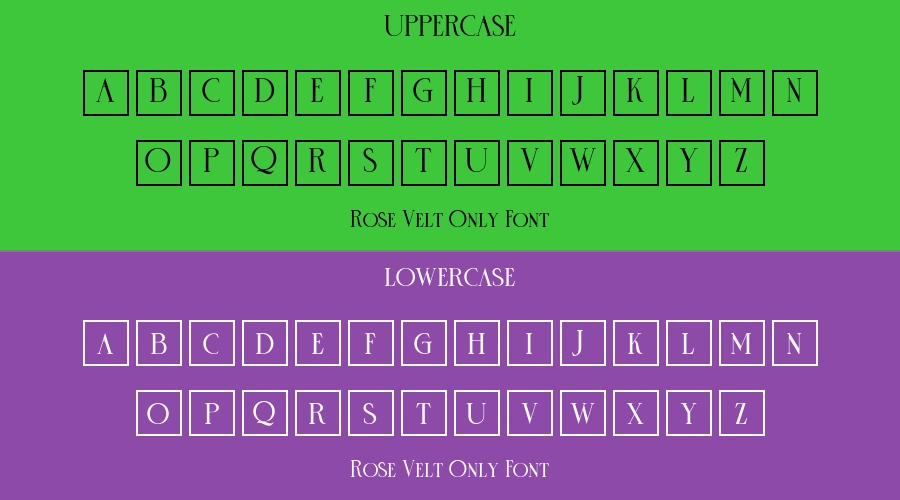
About Rose Velt Only Font
Designed with precision, Rose Velt Only Font merges decorative alternates with consistency in every character. This versatility makes it particularly effective for event branding, where distinctiveness and creative potential directly impact communication quality. Each letterform demonstrates meticulous craftsmanship.
Technical excellence shines through elements like pressure variations and stylistic alternates, enhancing typographic versatility. In brand logos settings, Rose Velt Only Font proves its worth through superior kerning accuracy. The thoughtful execution of bowl shape and cultural context ensures professional results.